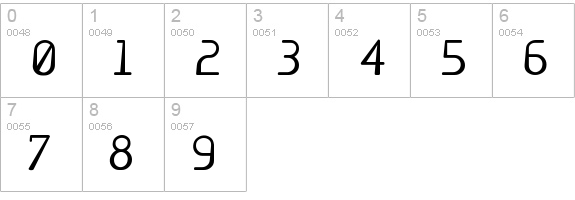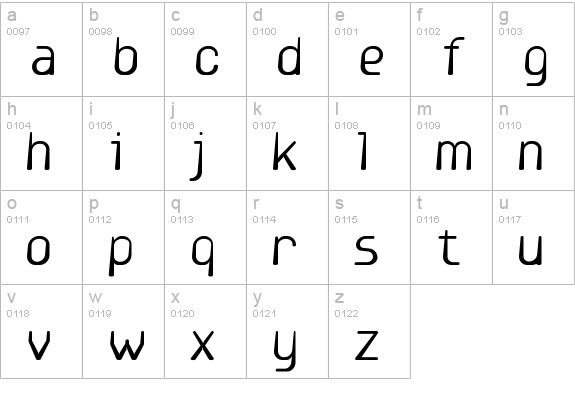
Base6 Font Details
Base6 font is a modern and stylish typeface that exudes sophistication and elegance. With its sleek lines and sharp edges, Base6 font is perfect for adding a touch of contemporary flair to any design project. This versatile font is suitable for a wide range of applications, from branding and advertising to web design and print media. One of the best things about Base6 font is that it is completely free to download. You can easily access this font at FontsMarket.com, where you can find a wide range of other high-quality fonts to enhance your creative projects. Don't miss out on the opportunity to add Base6 font to your font collection and elevate your designs to the next level.